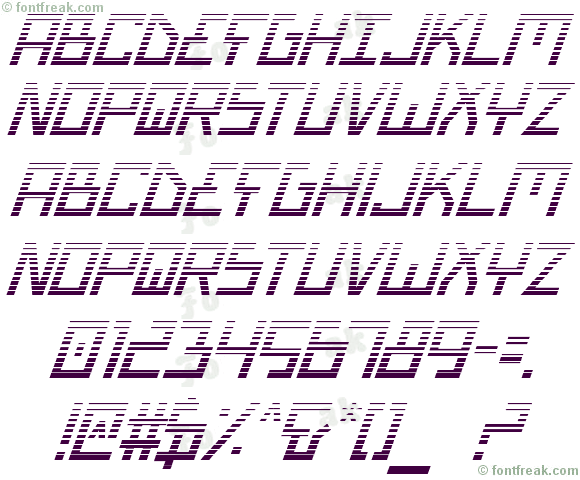
Bionic Type Out Italic
About Bionic Type Out Italic
Bionic Type Out Italic, designed by Daniel Zadorozny in 2002, is a striking display font that falls into the bionic type category. This unique typeface showcases an italicized slant, infused with a futuristic aesthetic that captures attention. Its stroke weight is notably bold with a condensed structure, creating a dynamic visual impact. The font features sharp edges and a slight gradient effect, which adds depth and dimension to each character. The spacing between letters is well-balanced, ensuring clarity and readability, even at larger sizes.
This font is ideal for a range of creative applications. It excels in movie posters, where its bold presence can convey action and excitement. Additionally, it works well for tech-related branding, such as product packaging or promotional materials for innovative services. Graphic designers can utilize Bionic Type Out Italic in advertisements, particularly those targeting a younger, tech-savvy audience. It can also be effectively used in event flyers or music festival promotions, where a modern and edgy vibe is desired.
The target audience for this font includes graphic designers, small business owners, and content creators looking to make a bold statement. Its unique style appeals to those wanting to stand out in a crowded marketplace, offering a fresh alternative to conventional typefaces.
What sets Bionic Type Out Italic apart is its distinctive blend of modernity and playfulness. The combination of its bold strokes, slanting lines, and gradient elements creates a visually captivating typeface that is both versatile and memorable. For anyone looking to enhance their design projects with a contemporary flair, the Bionic Type Out Italic font free download is a fantastic choice that promises to elevate any creative endeavor.